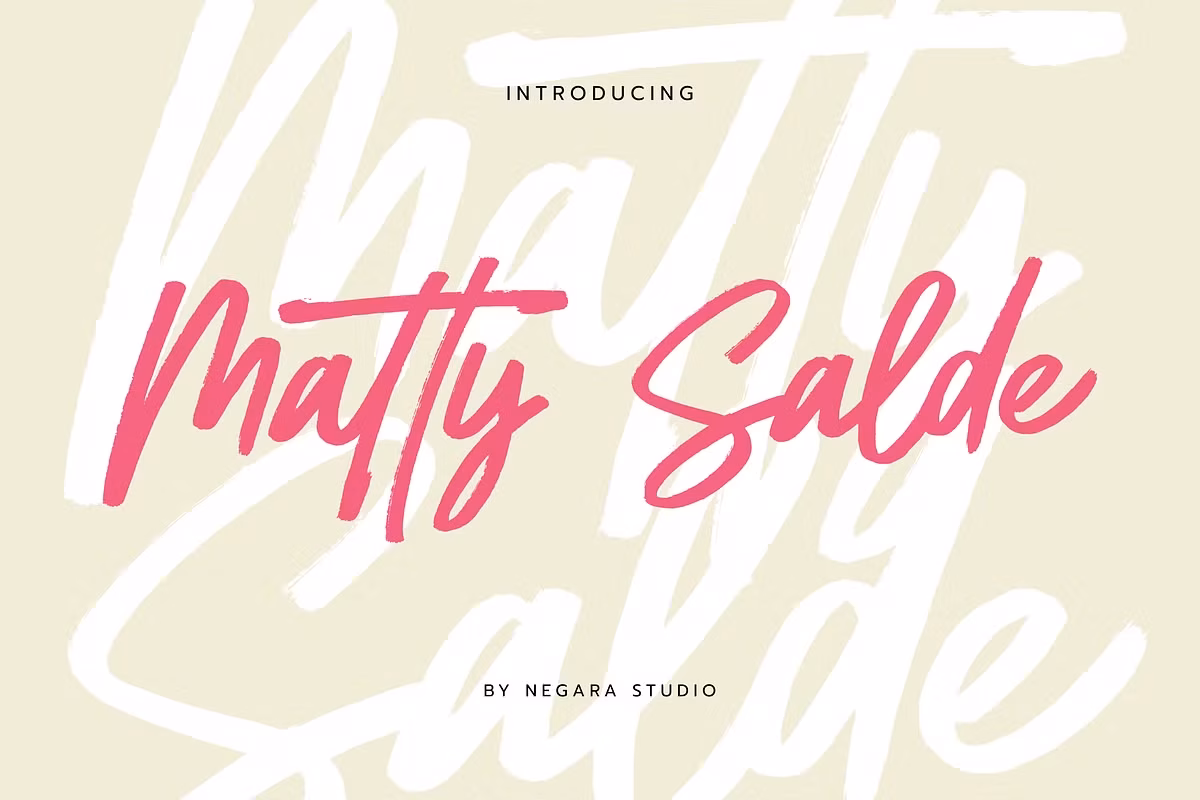
Matty Salde Font Free Download is a stylish and expressive handwritten script font that combines casual elegance with artistic flair. With its fluid strokes, playful curves, and natural flow, Matty Salde is perfect for wedding invitations, personal branding, Instagram quotes, packaging, and any creative project that needs a touch of personality and sophistication.
Crafted to mimic authentic handwriting, Matty Salde Font Free Download includes ligatures and stylistic alternates for a customized and realistic look. Its balanced design makes it suitable for both print and digital use, adding warmth and charm to any layout.